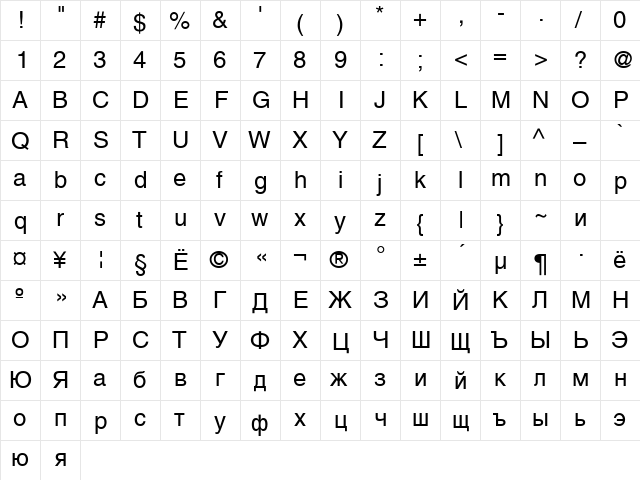
AGHlvCyrillic Normal
Design Context for AGHlvCyrillic Typeface
AGHlvCyrillic takes a measured approach to typography — its balanced proportions and neutral character make it a reliable workhorse for both digital and print work.